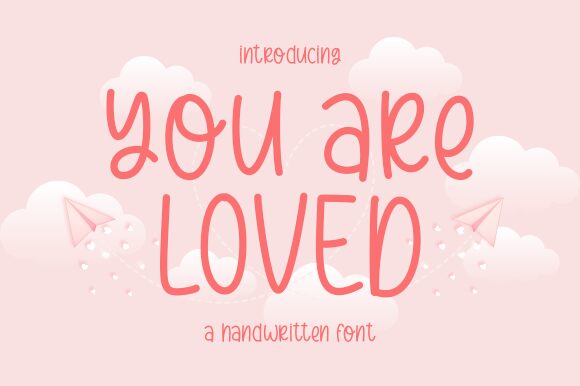
Meet You Are Loved, the perfect handwritten font for your next creative project! Designed by Risma Ramawi, this semi-light typeface adds a personal touch to any design. With its semi-condensed width, You Are Loved is versatile and suitable for various projects such as wedding invitations, logos, branding materials, and social media graphics. The flowing strokes of this font give it a warm and inviting feel that will make your audience feel loved and appreciated. Use You Are Loved to add a unique touch to your designs and make them stand out from the rest!
You Are Loved
Risma Ramawi